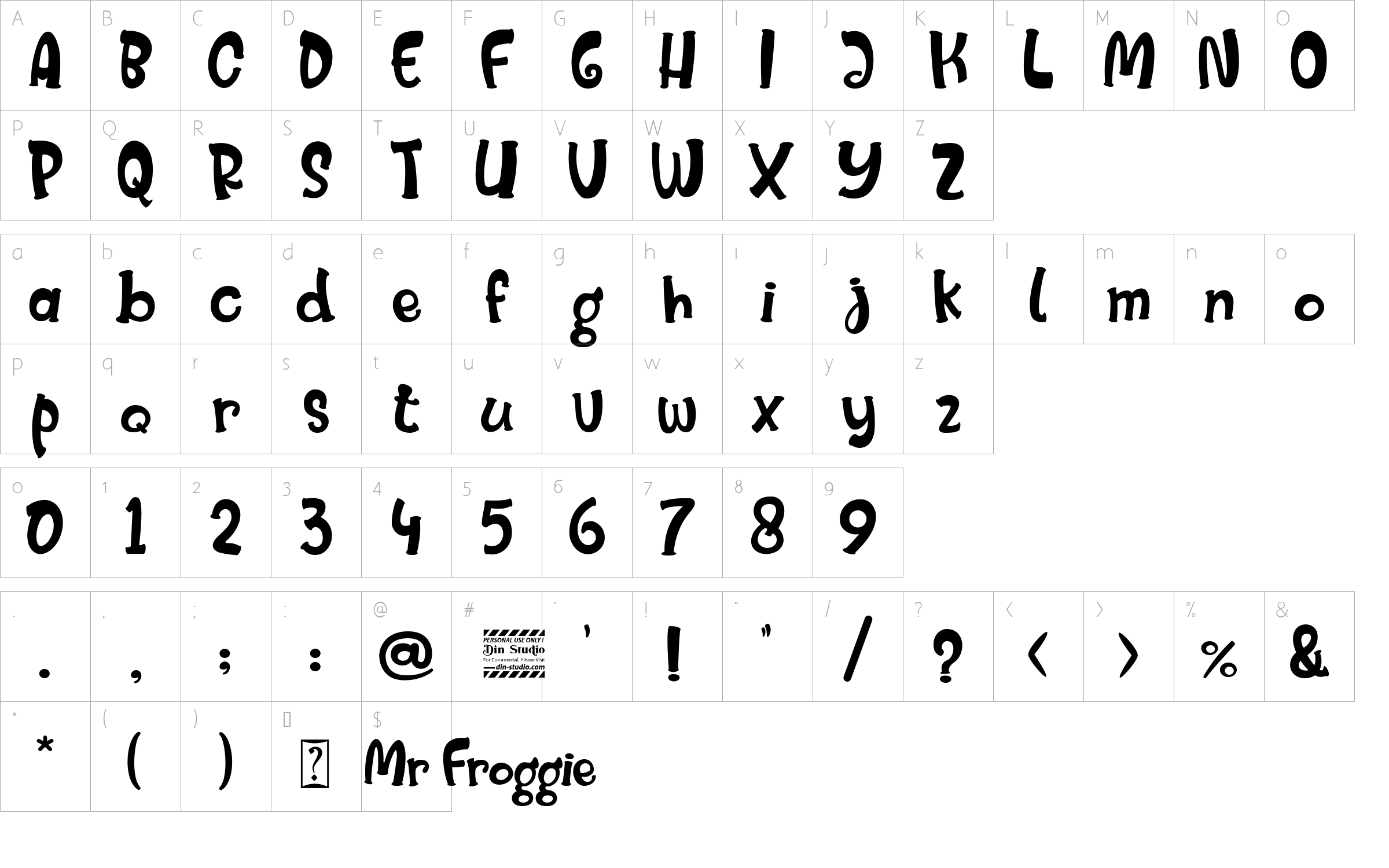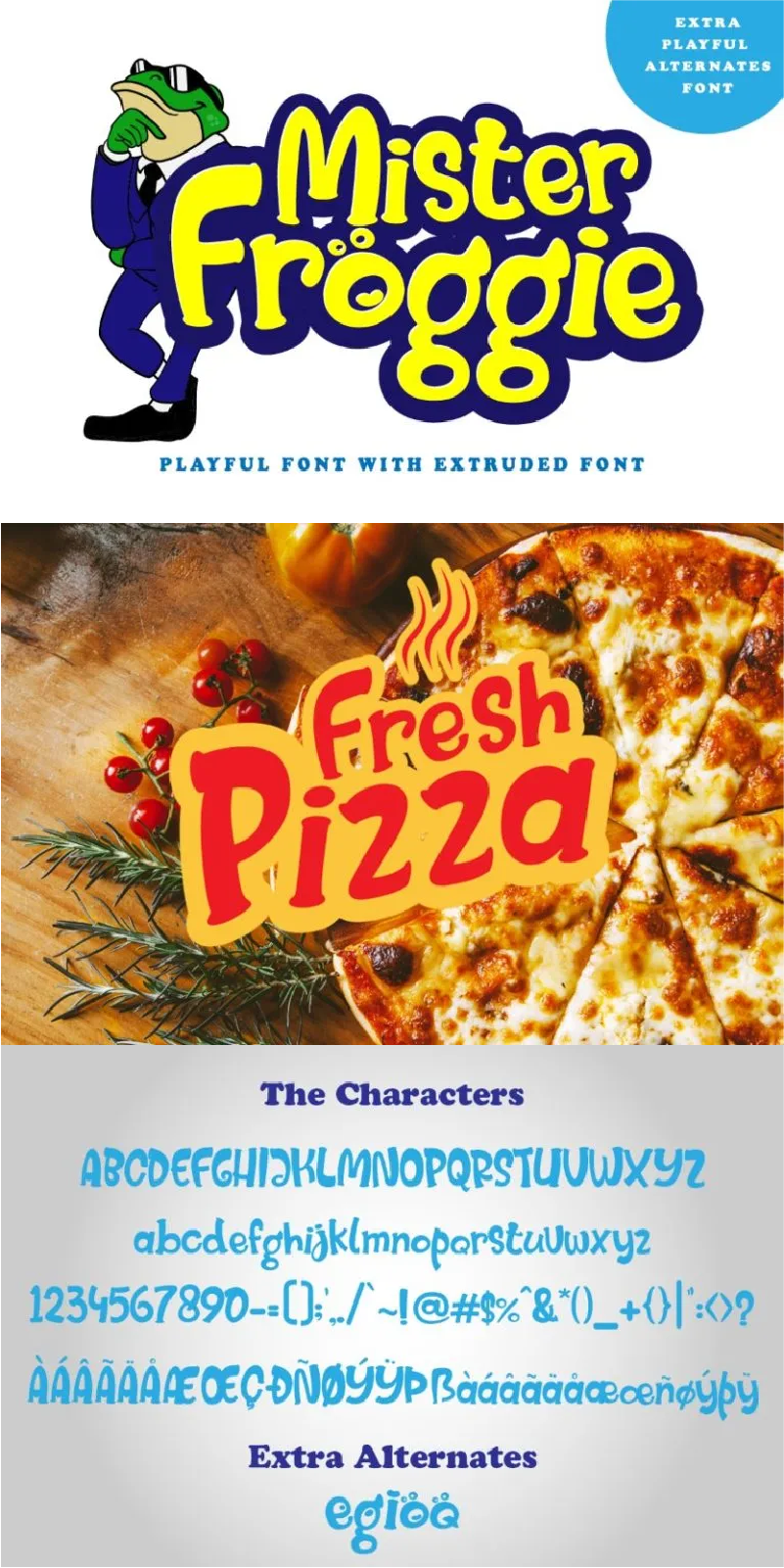
Mister Froggie Font
About Mister Froggie
Mister Froggie Playful font, a playful font with an extruded font which is logos, branding projects, product packaging, quotes, book covers, greeting cards, and other lovely projects.
• Alternates
• Stylistic Sets